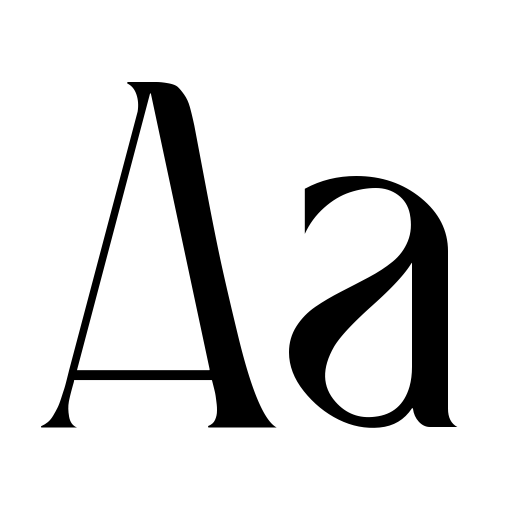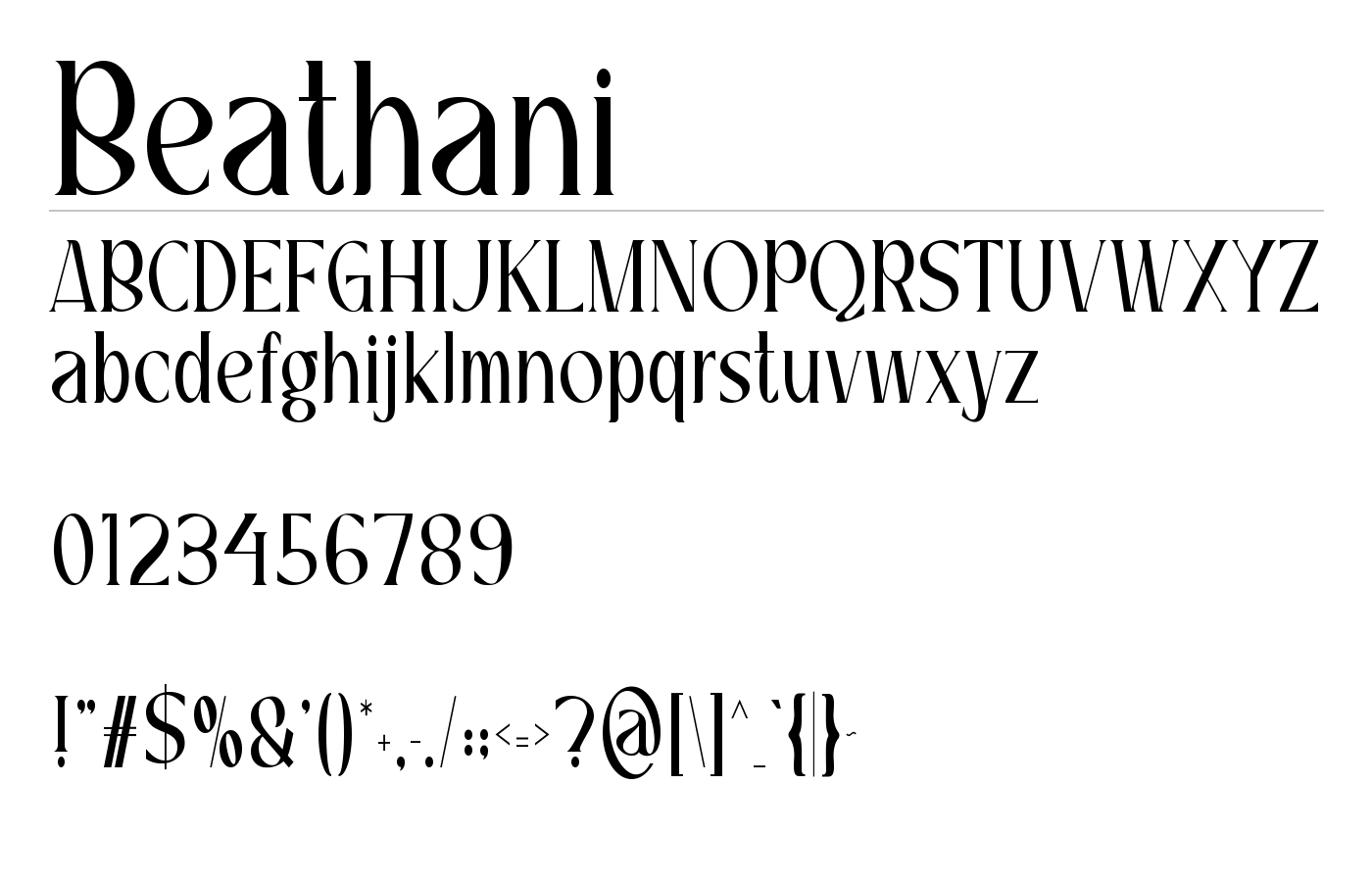
Beathani is a stylish serif font with a tall, elegant structure and high contrast between thick and thin strokes, giving it a refined and sophisticated appearance. Its narrow letterforms and distinctive features, like the unique shapes of the uppercase Q and ampersand, make it perfect for upscale branding, editorial headlines, and luxury packaging where a touch of class and modern flair is desired. This font works best in display settings, adding a sense of elegance and exclusivity to any design.
Beathani Font